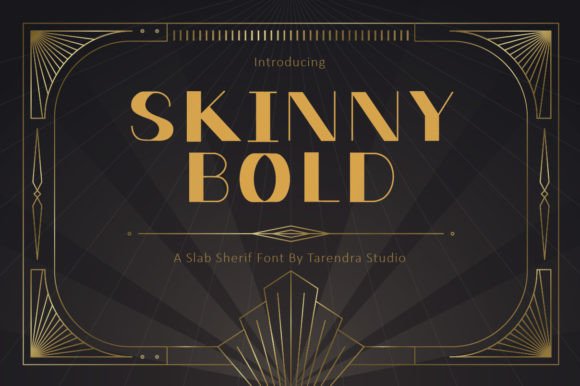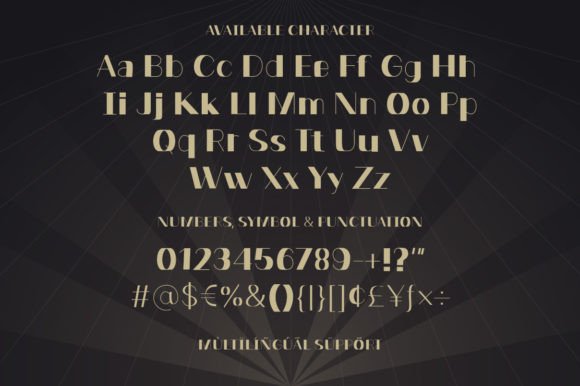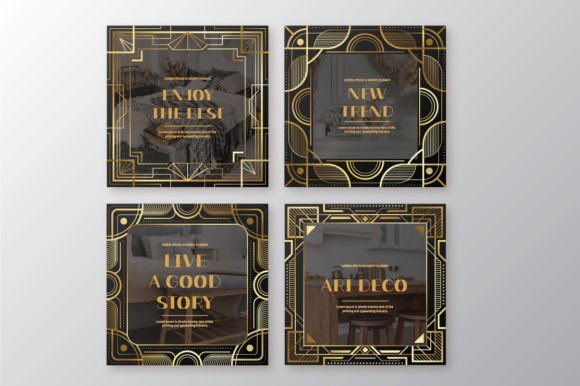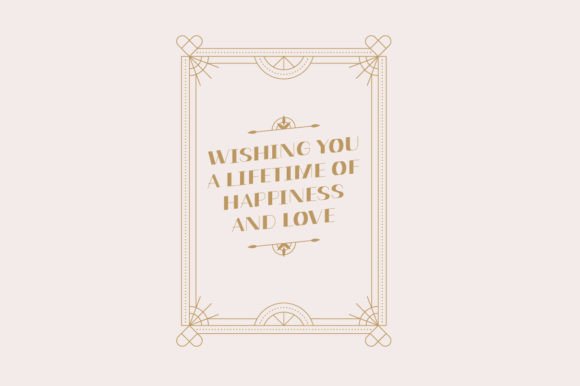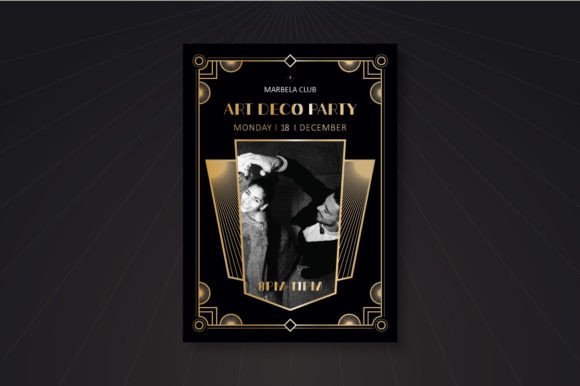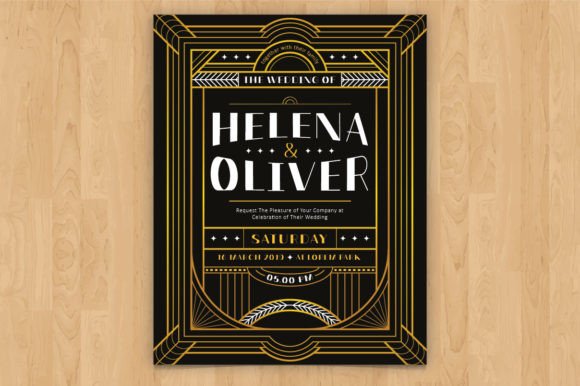
Skinnybold is an art deco font style with a handwritten feel. Whether you’re using it for crafts, digital design, presentations, or greeting cards with an art deco style or a unique style, this font has the potential to become your favorite go-to font, no matter the occasion!